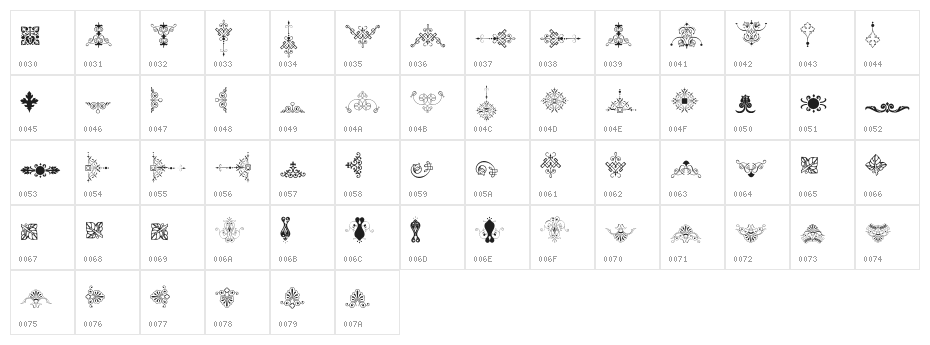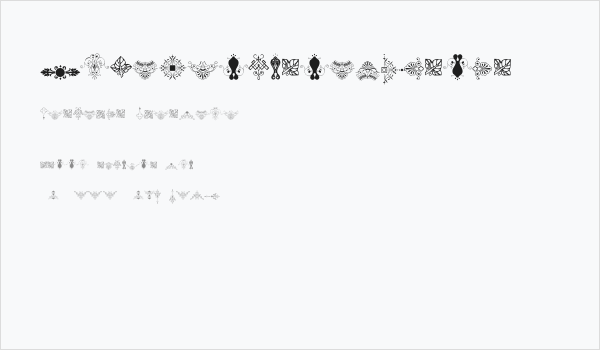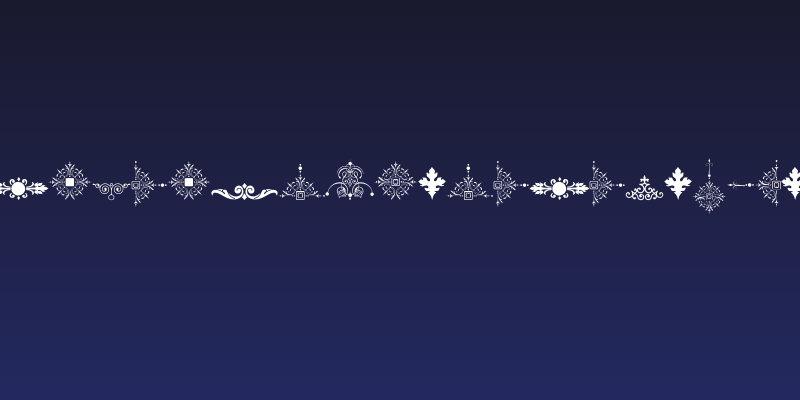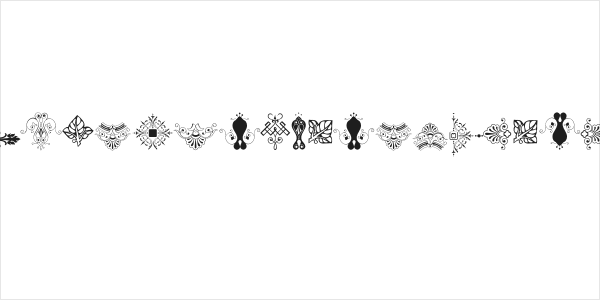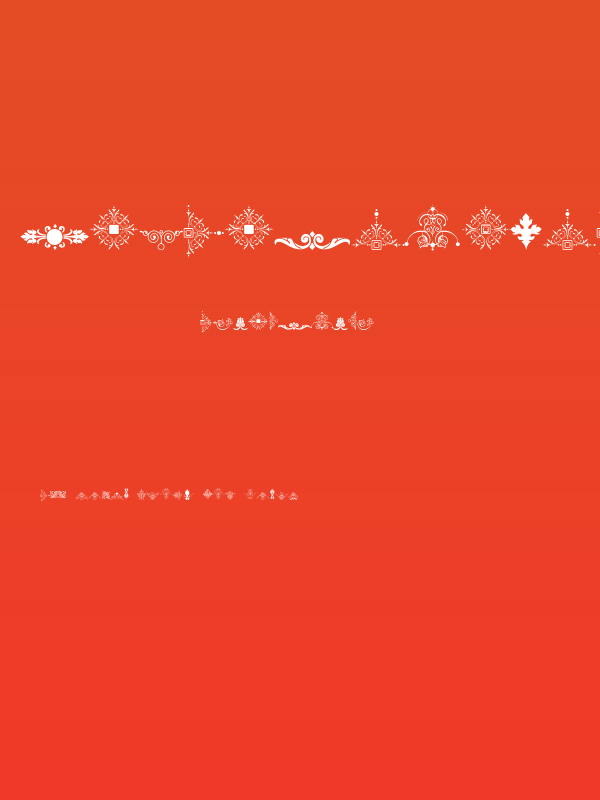
SoftOrnamentsTwelve Font
This collection features a series of intricate and decorative ornaments that are highly detailed and ornate. Each design showcases a unique blend of floral and geometric patterns, creating a sense of elegance and sophistication. The elements are symmetrical, with a focus on curves and flourishes that add a touch of classic artistry. These ornaments are versatile and can be used to embellish a variety of projects, providing a vintage or baroque feel. The designs are consistent in their intricate detailing, making them suitable for high-end design work.
| Use Case | Logos, Decorative elements, Invitations |
| Proposed Projects | Ideal for wedding invitations, luxury branding, decorative borders, and vintage-themed designs. |